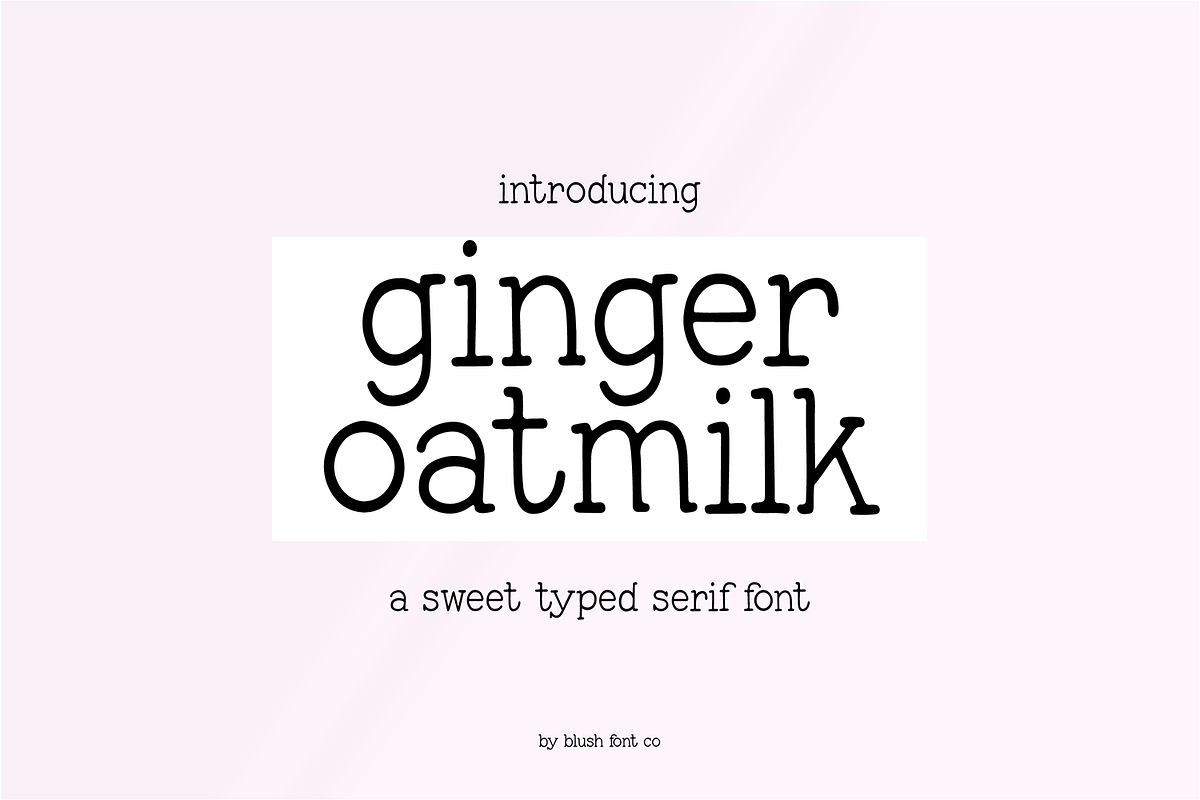
GINGER OATMILK Cute Serif Handwriting Font Free Download is an adorable and charming serif typeface with a handwritten touch, designed to bring warmth and personality to your designs. With its gentle curves, rounded edges, and playful style, this font is perfect for children’s content, greeting cards, branding, social media posts, and any project that needs a friendly, approachable feel.
The combination of a cute serif design with a handwritten aesthetic makes Ginger Oatmilk versatile for both formal and informal projects. Whether you're creating whimsical invitations or personalized product labels, this font brings a sweet and elegant vibe to your typography.
Add a touch of warmth and sweetness to your designs with the delightful style of Ginger Oatmilk! ☕💛